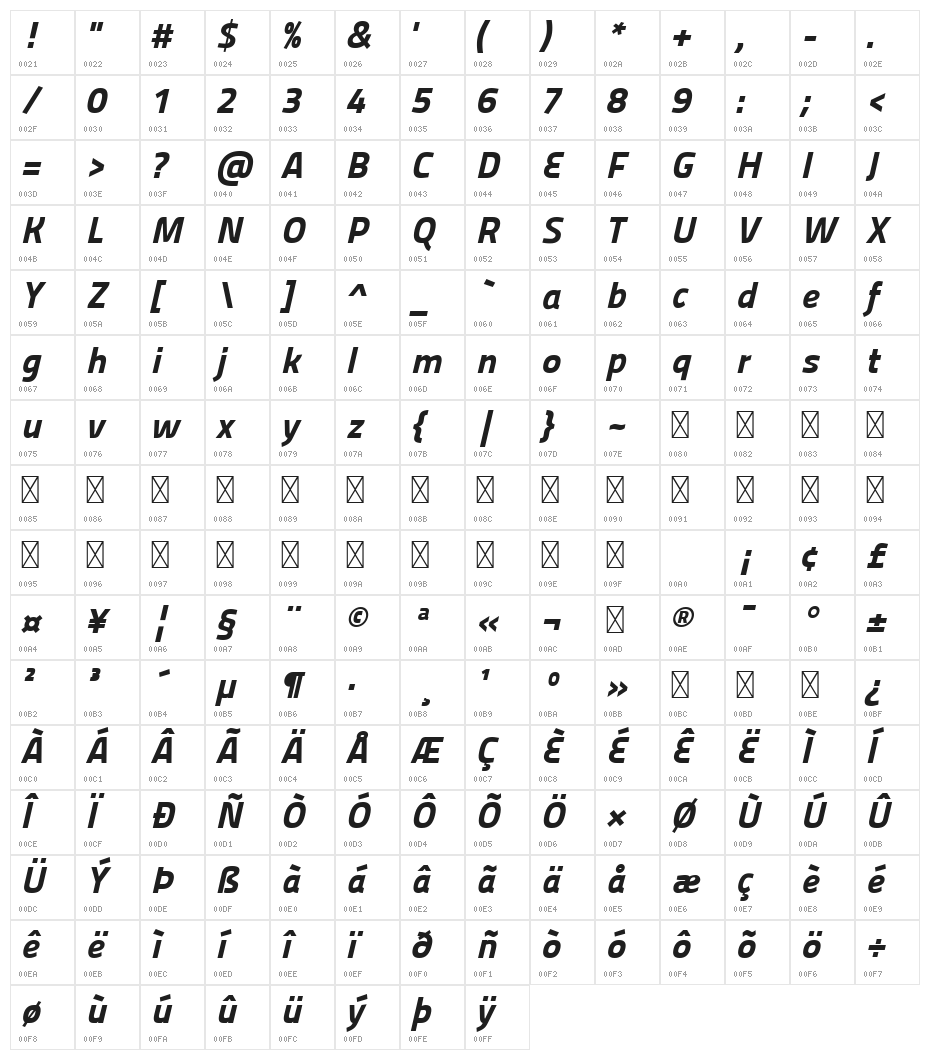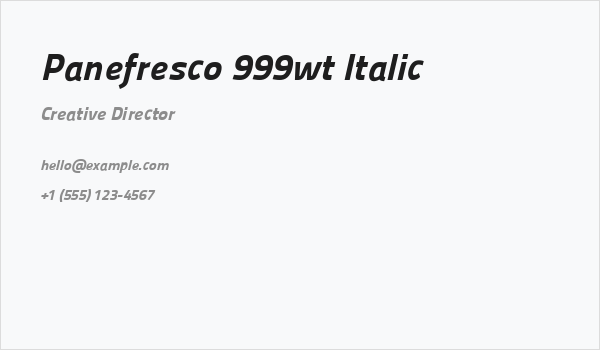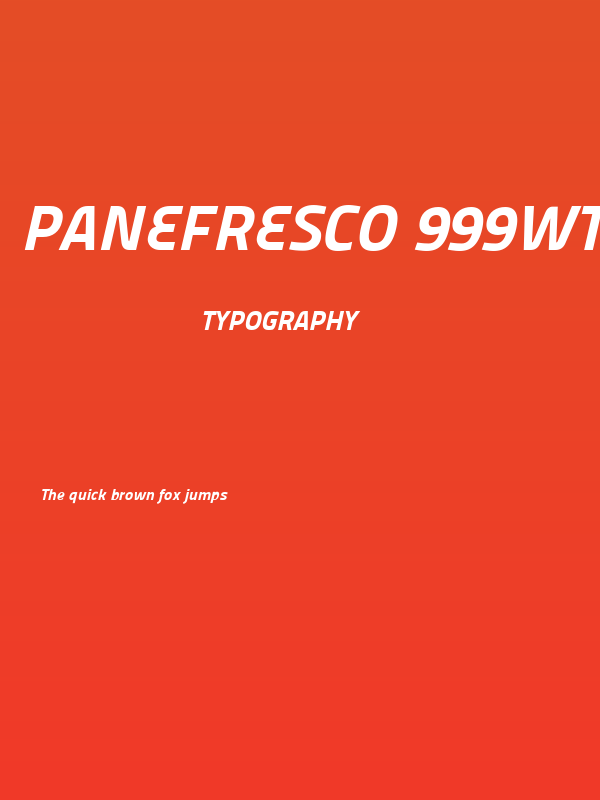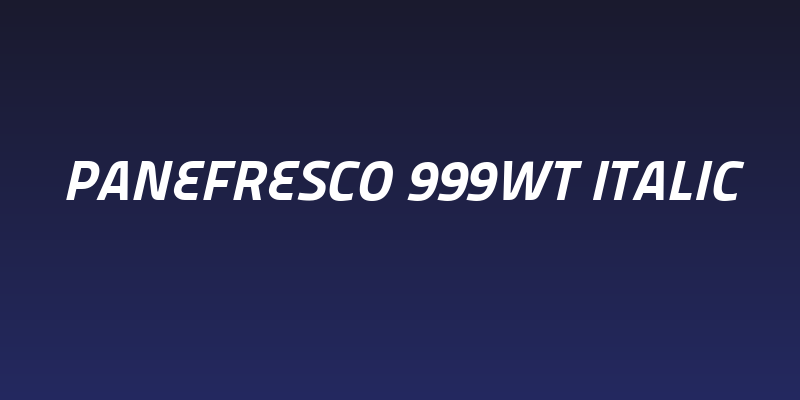
Panefresco 999wt Italic Font
Panefresco 999wt Italic Description
This font features a modern and dynamic style with a strong italic slant, giving it a sense of motion and energy. The characters are bold and slightly condensed, with smooth curves and sharp angles that create a sleek and contemporary appearance. The uppercase letters are prominent and assertive, while the lowercase letters maintain a consistent flow, enhancing readability. The numerals are clear and distinct, matching the overall boldness of the font. Special characters are well-integrated, maintaining the font's cohesive design. This font is ideal for projects that require a modern and impactful look.
Use CaseHeadlines, Logos, Advertising
Proposed ProjectsIdeal for branding, advertising, headlines, and digital media that require a modern and energetic look.